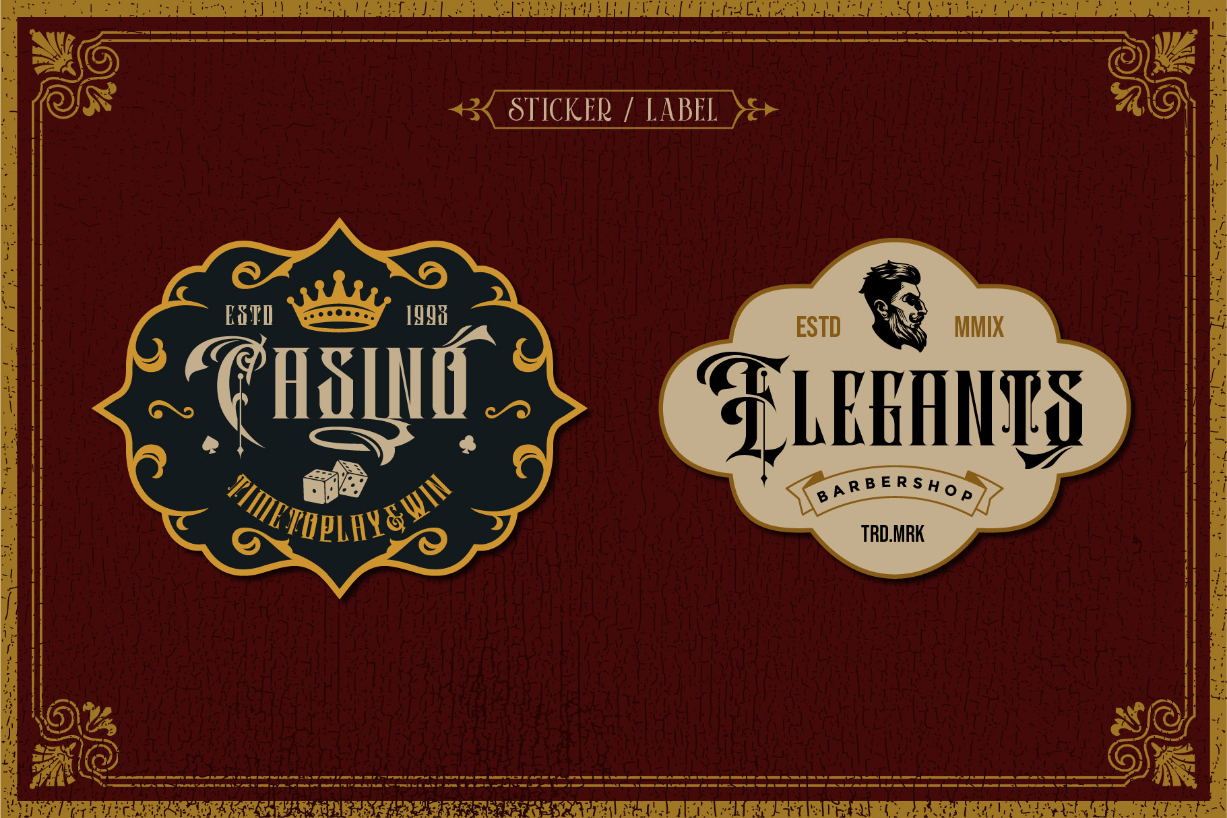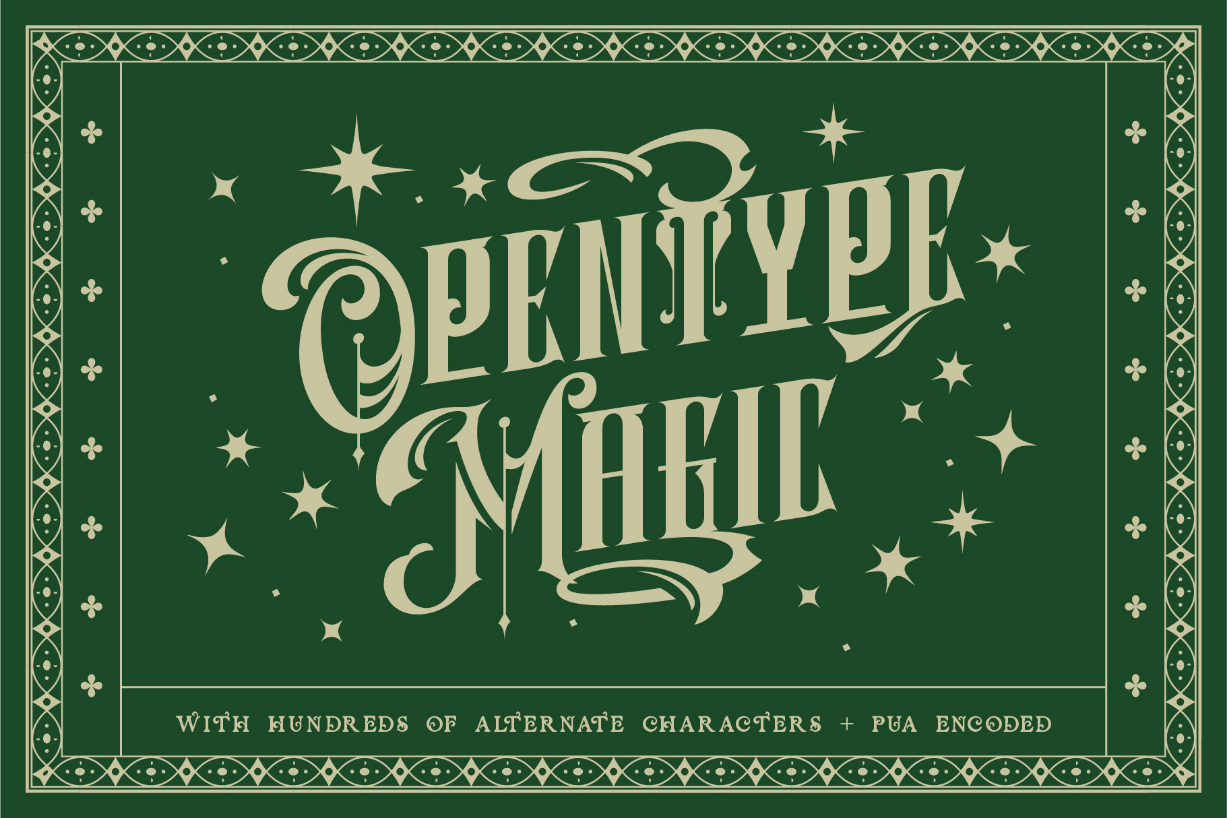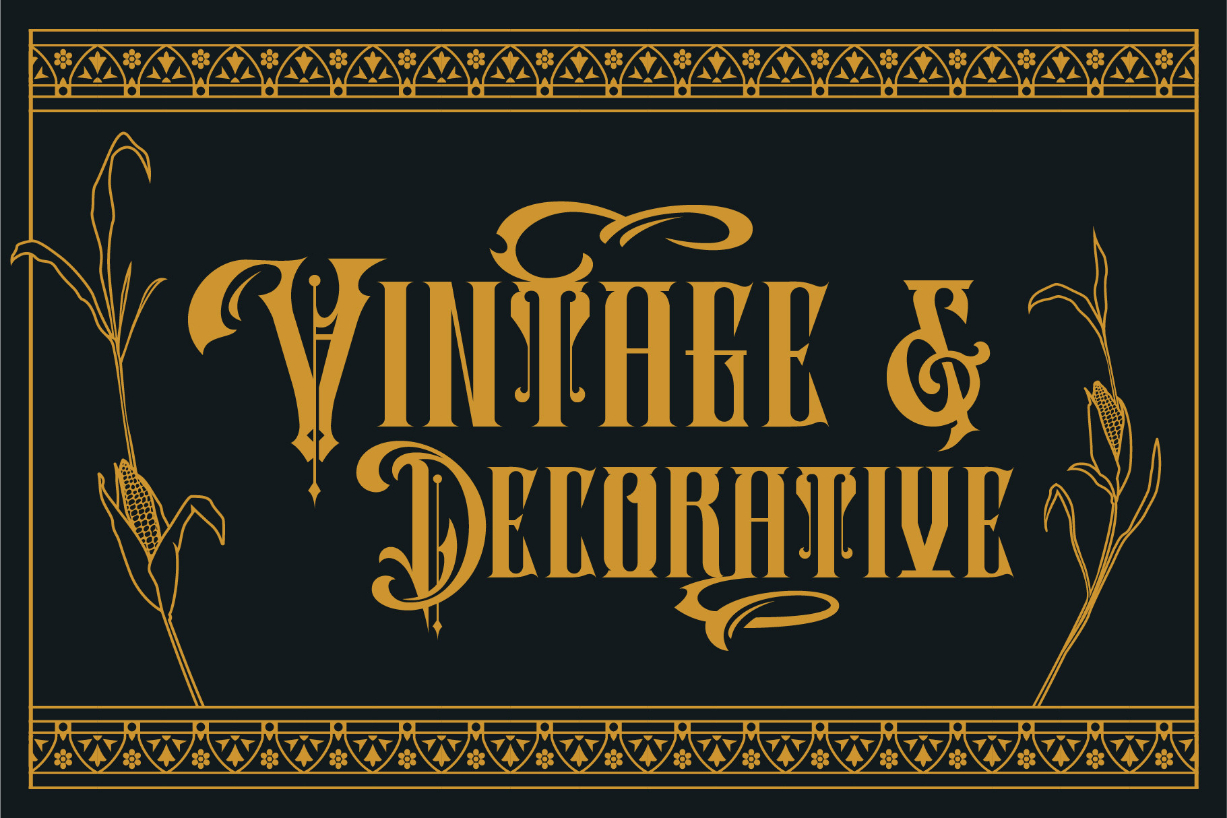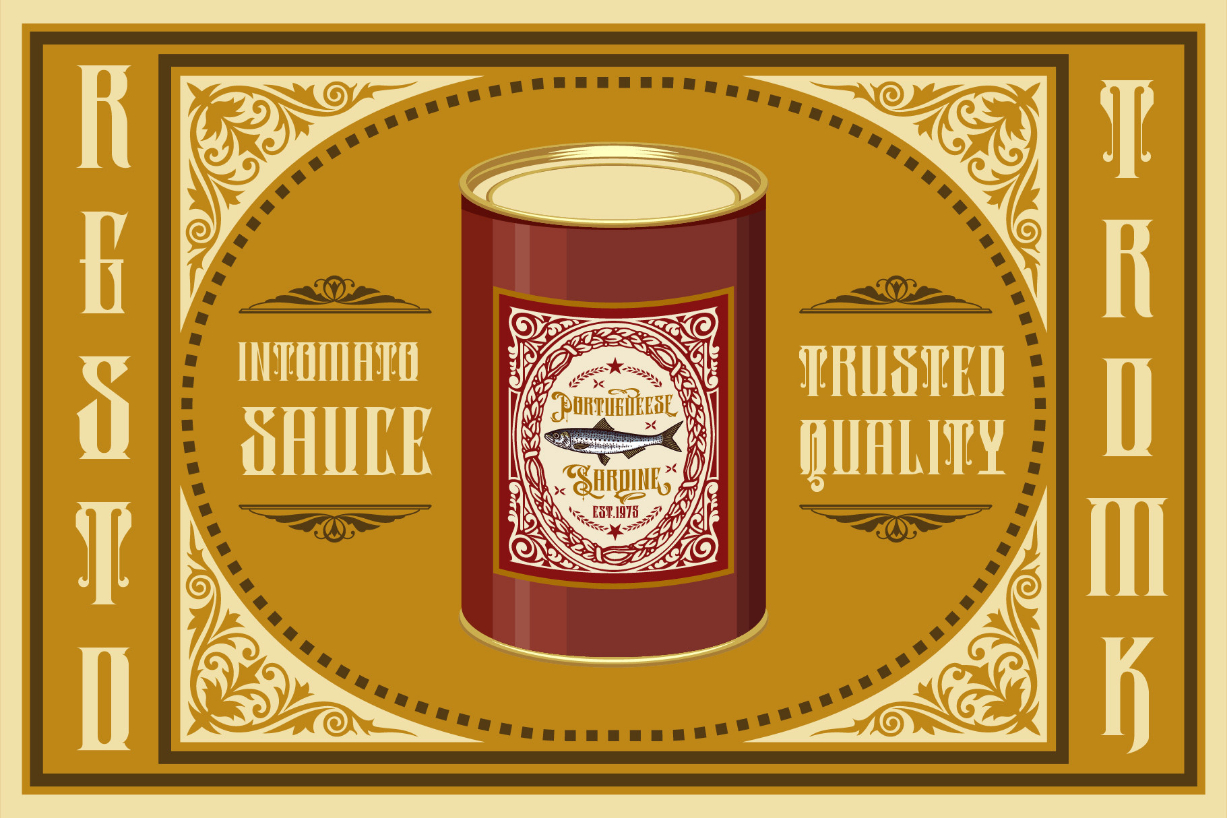
About Barones Font
Barones is a bold and distinct blackletter font, inspired by the victorian style. This font is PUA encoded which means you can access all of the glyphs and swashes with ease! Add it confidently to your projects, and you will love the results.